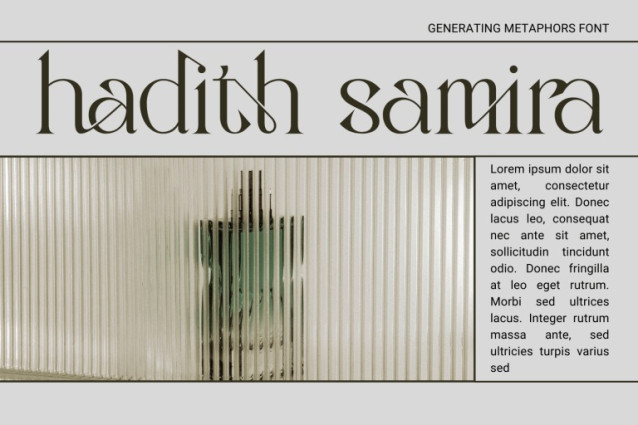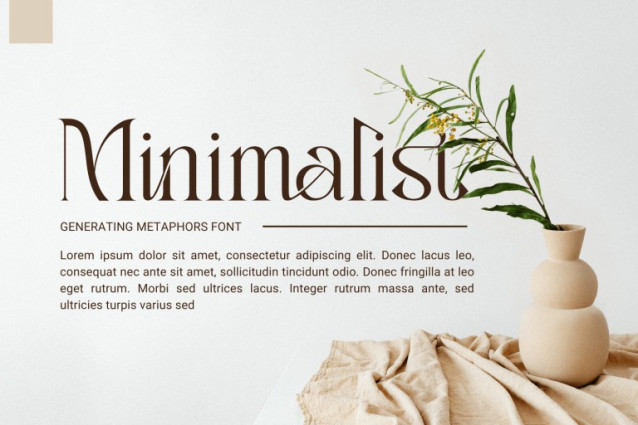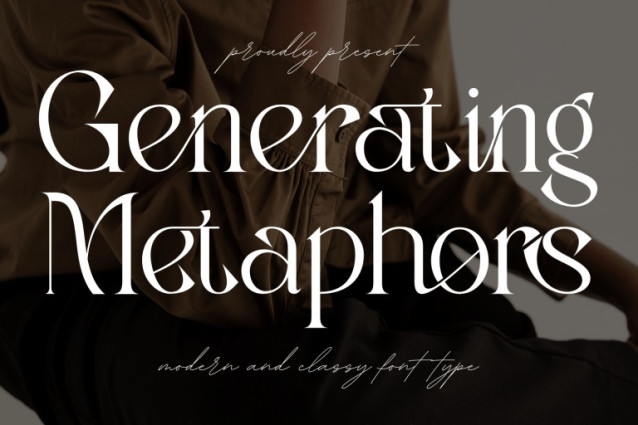
Generating Metaphors Font
Generating Metaphors – Elegant Serif Font – Elegant Modern Serif Font, an elegant modern serif font crafted with refined details and expressive character. Featuring high-contrast strokes, delicate serifs, and gracefully curved letterforms, this typeface brings a perfect balance between classic sophistication and contemporary design. The font showcases smooth transitions, stylish terminals, and carefully designed ligatures that add a subtle sense of movement and luxury to every word. Its graceful proportions and polished structure make Generating Metaphors ideal for editorial layouts, fashion branding, beauty products, premium packaging, and artistic headlines.
Uppercase & Lowercase Letters
Around 100 Special Ligatures & Alternates
Accented Characters for multilingual support
🔤About 100 ligatures combined with Stylistic Alternates Font: